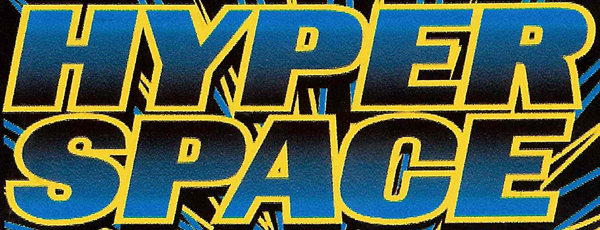
Can anyone help me identify this one...
I've always thought Charter Oak was ugly, somehow... and I can't imagine why anyone would bother to create a version for free distribution.
Still, though... we had Charter Oak on our IVB and again on our Sprint II and I did end up using it alot...
Charter Oak is fairly unique in that it is a weighted, oblique sans serif font. I'm not much on free fonts. Quality is erratic and many are just renamed ripoffs from the original versions.
So did I and we used to use the hell out of it. Being weighted, it can be stretched or condensed moderately without looking like it has been.